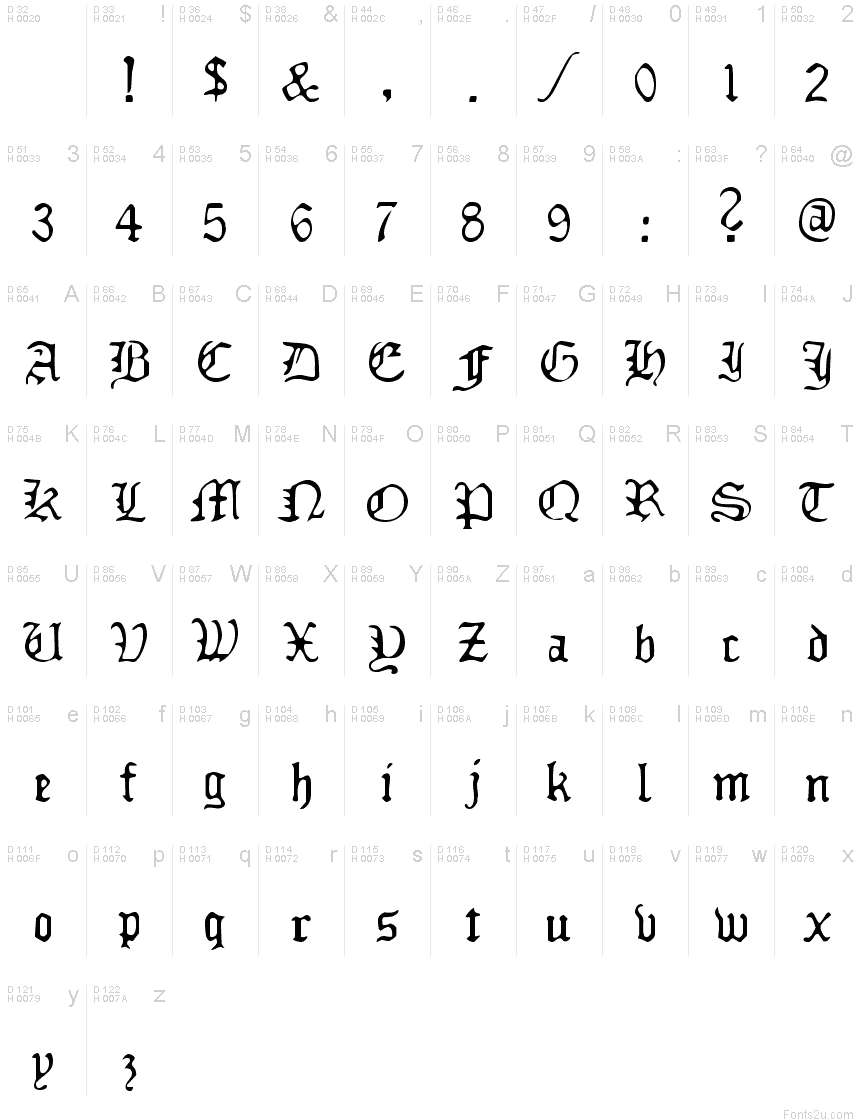
Deadly Breakfast
Deadly Breakfast font by Mr. Fisk Inversions is a free gothic medieval typeface with a deliciously sinister twist. Its letterforms feel like they’ve been brushed in inky black, with jagged curves, hooked strokes, and a slightly uneven rhythm that reads as hand-made rather than sterile. The result is dramatic and moody, like the title of a cursed grimoire or the logo of a cult horror zine.
Using Deadly Breakfast, you can push atmosphere to the forefront in horror posters, metal band branding, Halloween event graphics, dark fantasy book covers, game titles, and eerie YouTube thumbnails. This free font holds its shape best at larger sizes, where every spike and sweep can breathe. For supporting text, pair it with a clean, modern sans serif to keep your layouts readable while Deadly Breakfast steals the spotlight.